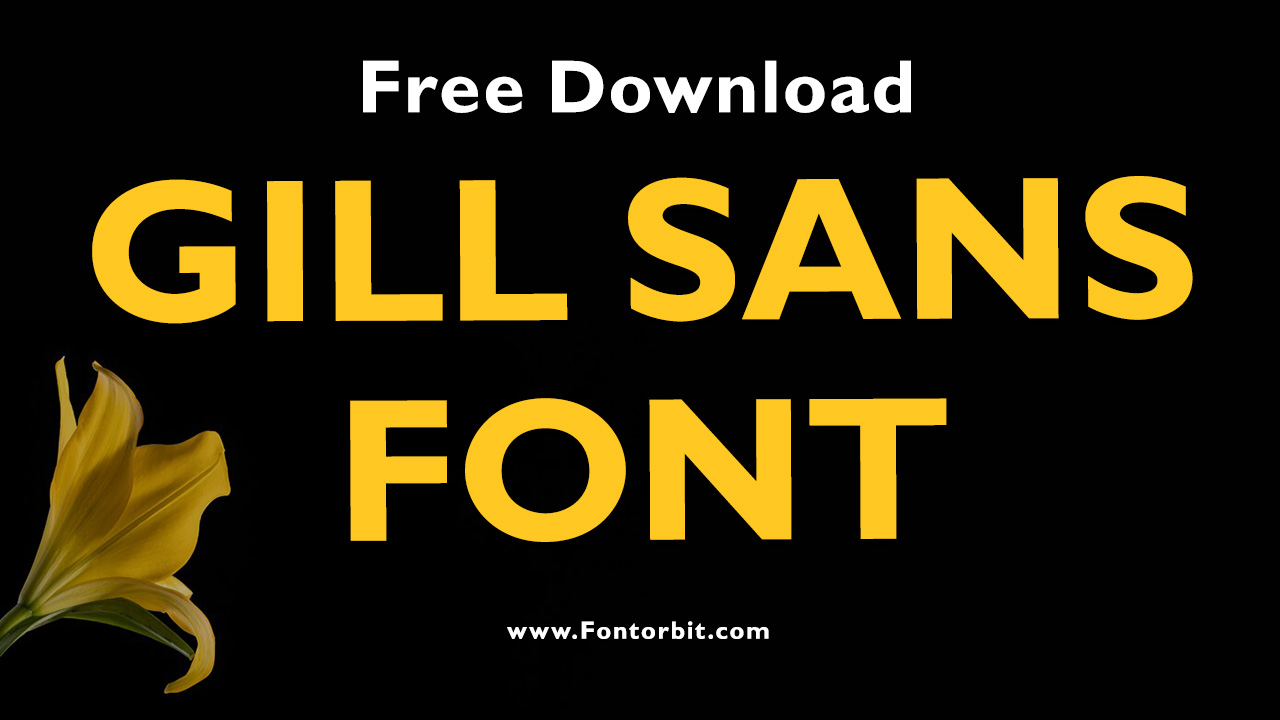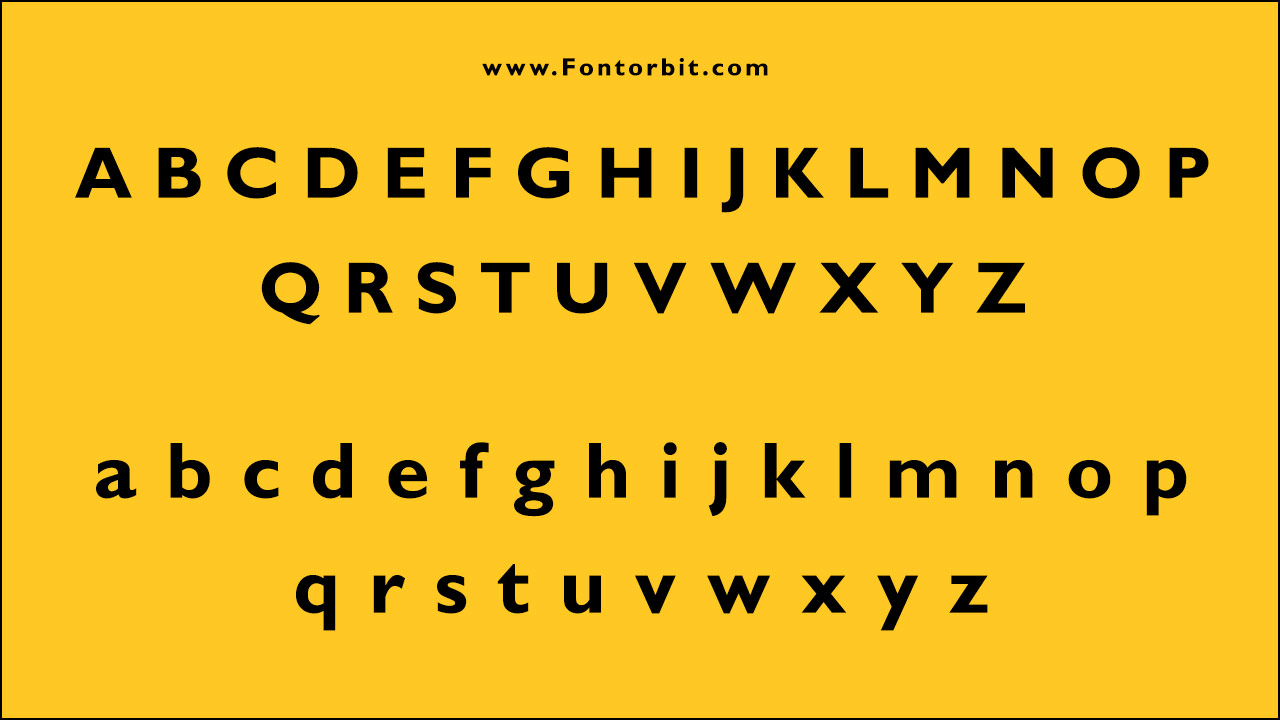
Gill Sans Font, designed by Eric Gill and released in 1928 by the British branch of Monotype, is a renowned humanist sans-serif typeface.
The Gill Sans Font Family Includes
Each style within the Gill Sans family maintains the typeface’s signature clarity and elegance, providing options for different typographic needs.
Gill Sans Font is ideal for a wide range of projects, thanks to its clean lines and humanist design. Each style within the Gill Sans family maintains the typeface’s signature clarity and elegance, providing options for different typographic needs. It excels in both formal and creative settings and can be used for various applications, including:
- Books
- Menus
- Title sequences and end credits
- Annual reports
- Retail store interiors
- Infographics
- Social media ads
- Banners
- Graphics
Gill Sans Font combines elegance and functionality with its extensive range of weights and styles. Its modern, humanist lines make it a versatile choice for a wide range of design projects. Pair Gill Sans Font with more expressive typefaces to create balanced and impactful designs.
1.Is Gill Sans Font Suitable For All Types Of Design Projects?
Gill Sans Font is highly versatile and can be used in various design projects. It excels in both formal and creative contexts but may be less suited to highly decorative or themed designs.
2.What Makes Gill Sans Font Different From Other Sans-Serif Fonts?
Gill Sans Font stands out with its humanist design, which combines clean lines with subtle curves, giving it a warm and approachable feel. Its balance of modernity and tradition makes it a timeless choice.
3.What Are The Popular Uses Of Gill Sans Font?
Gill Sans Font is popular in corporate branding, editorial design, signage, web design, and packaging due to its clarity, versatility, and modern yet classic aesthetic.
4.What Are The Design Principles Behind Gill Sans Font?
Gill Sans Font’s design principles focus on readability, balance, and versatility. Its clean, humanist lines and subtle curves provide a professional and timeless appearance.
5.What Color Palette Is Typically Used With Gill Sans Font?
Gill Sans Font pairs well with both classic and contemporary color palettes. Neutral tones, soft pastels, and bold contrasts can all complement the typeface’s clean lines and modern look.